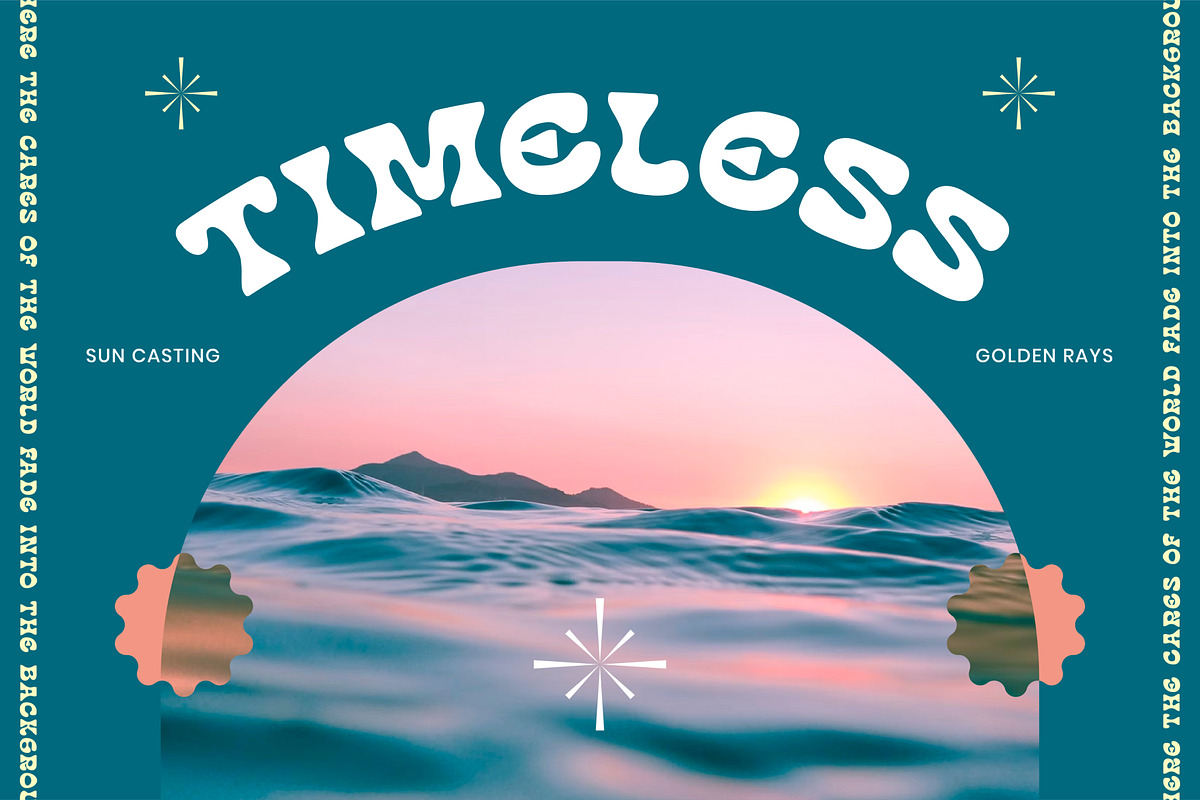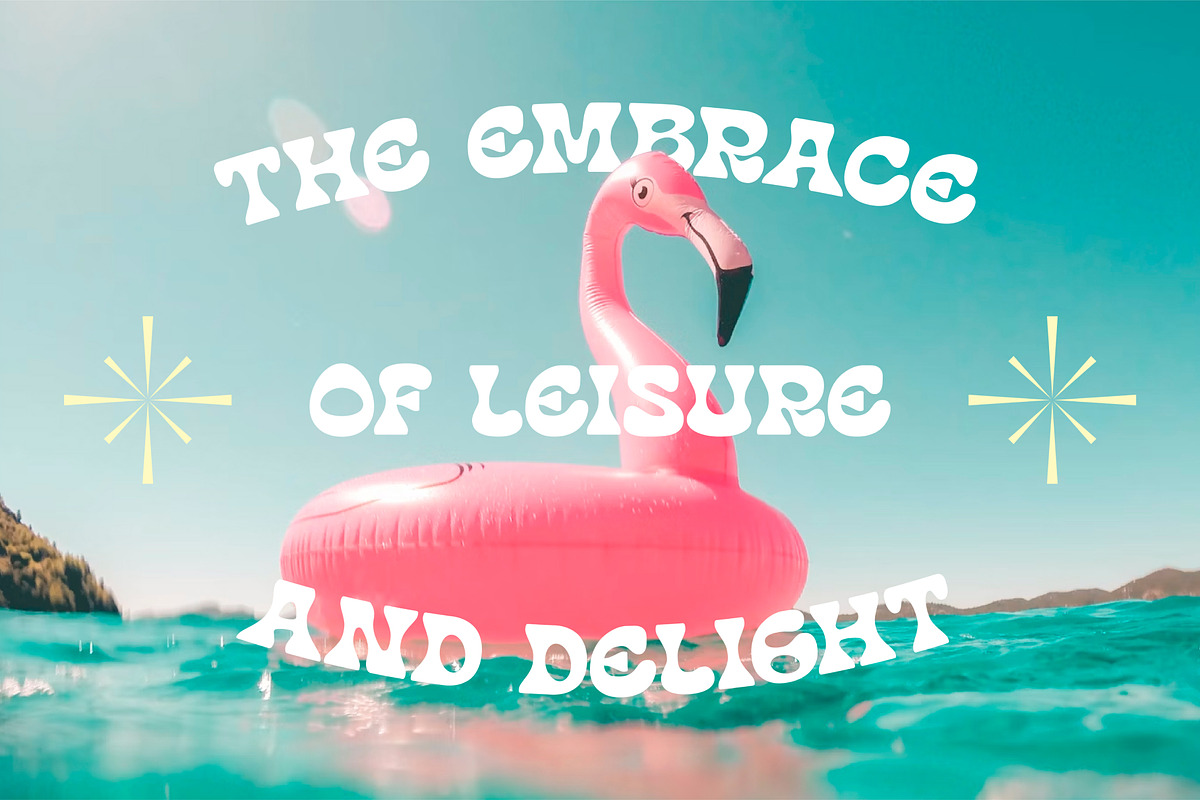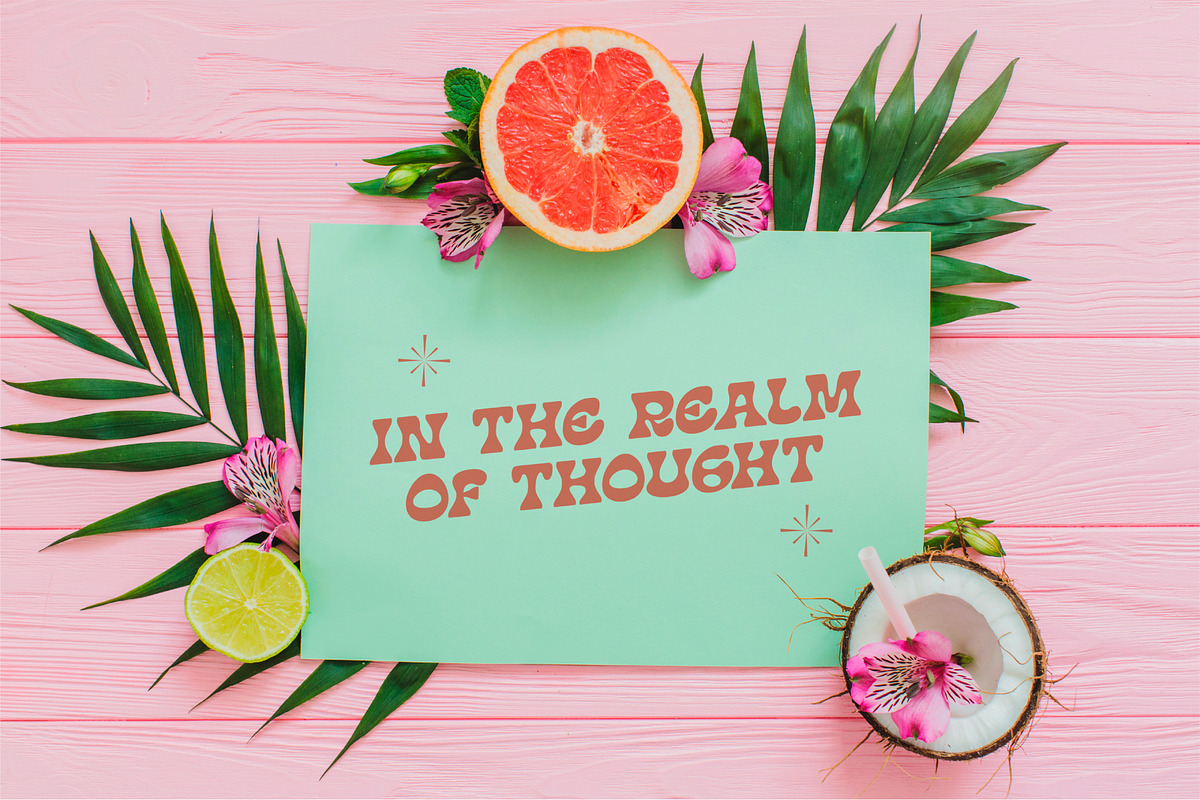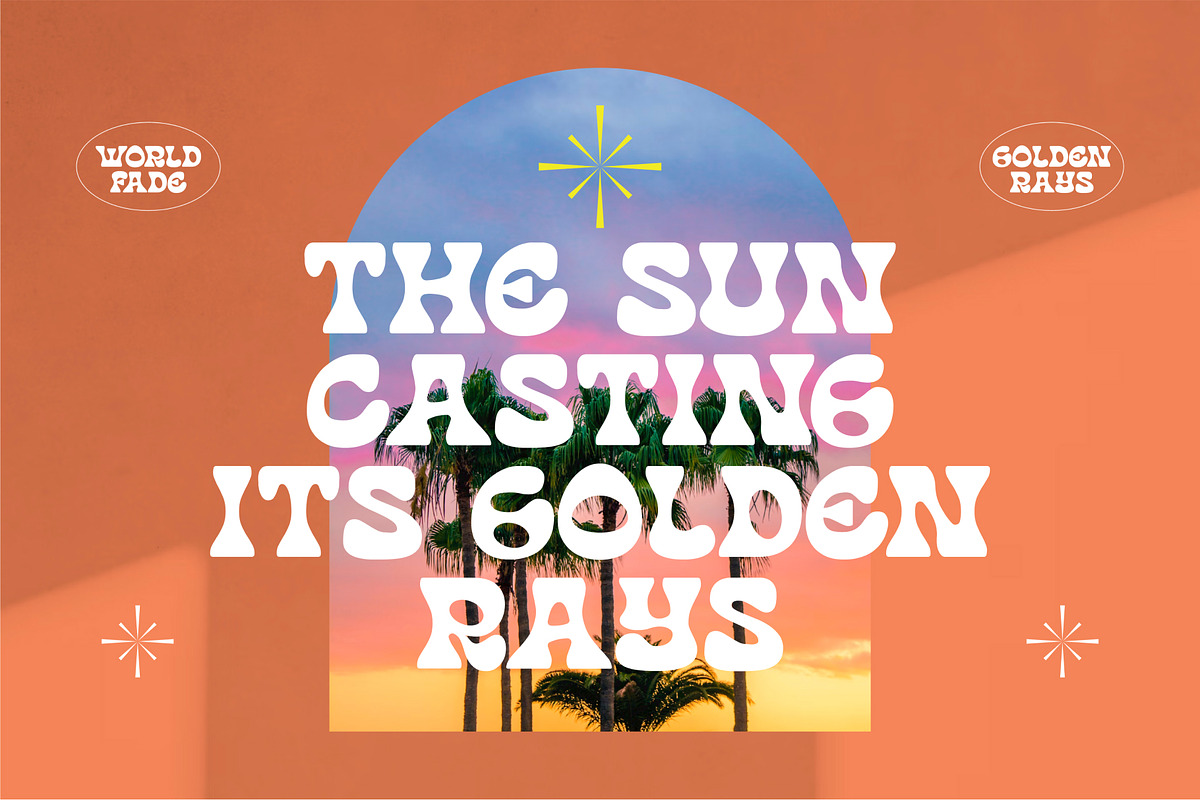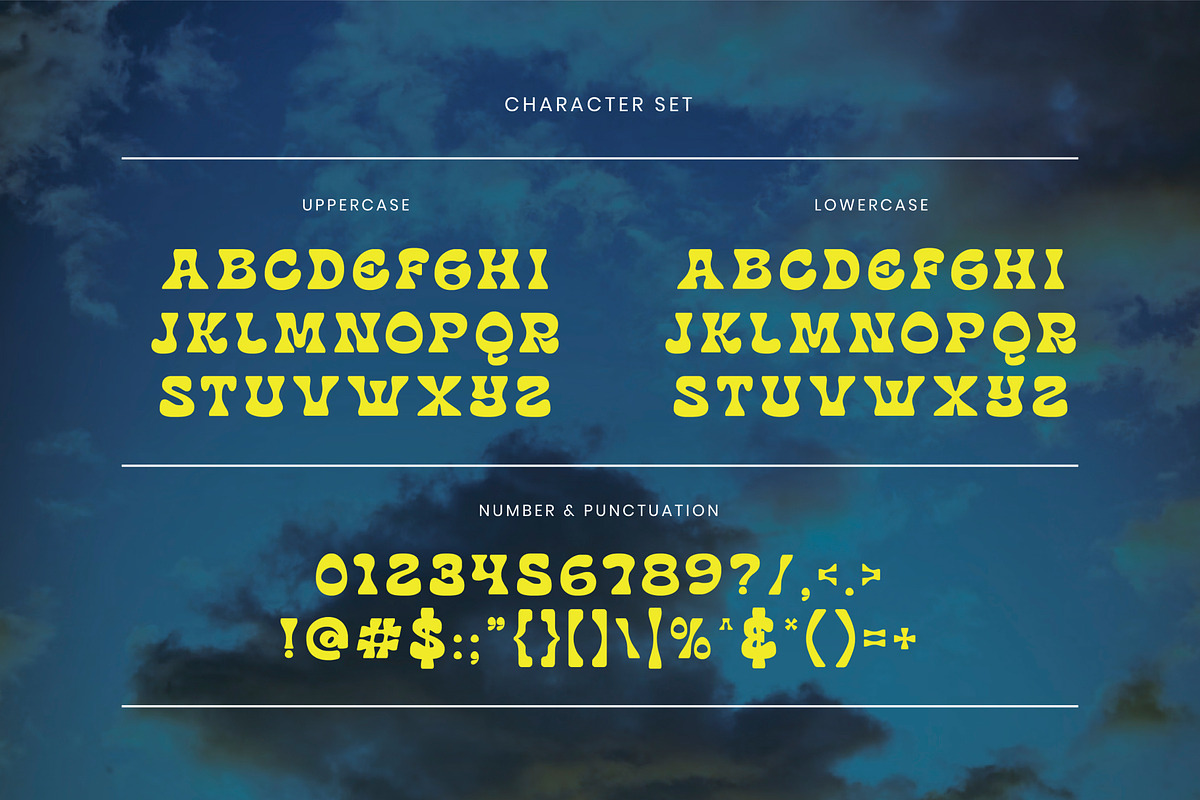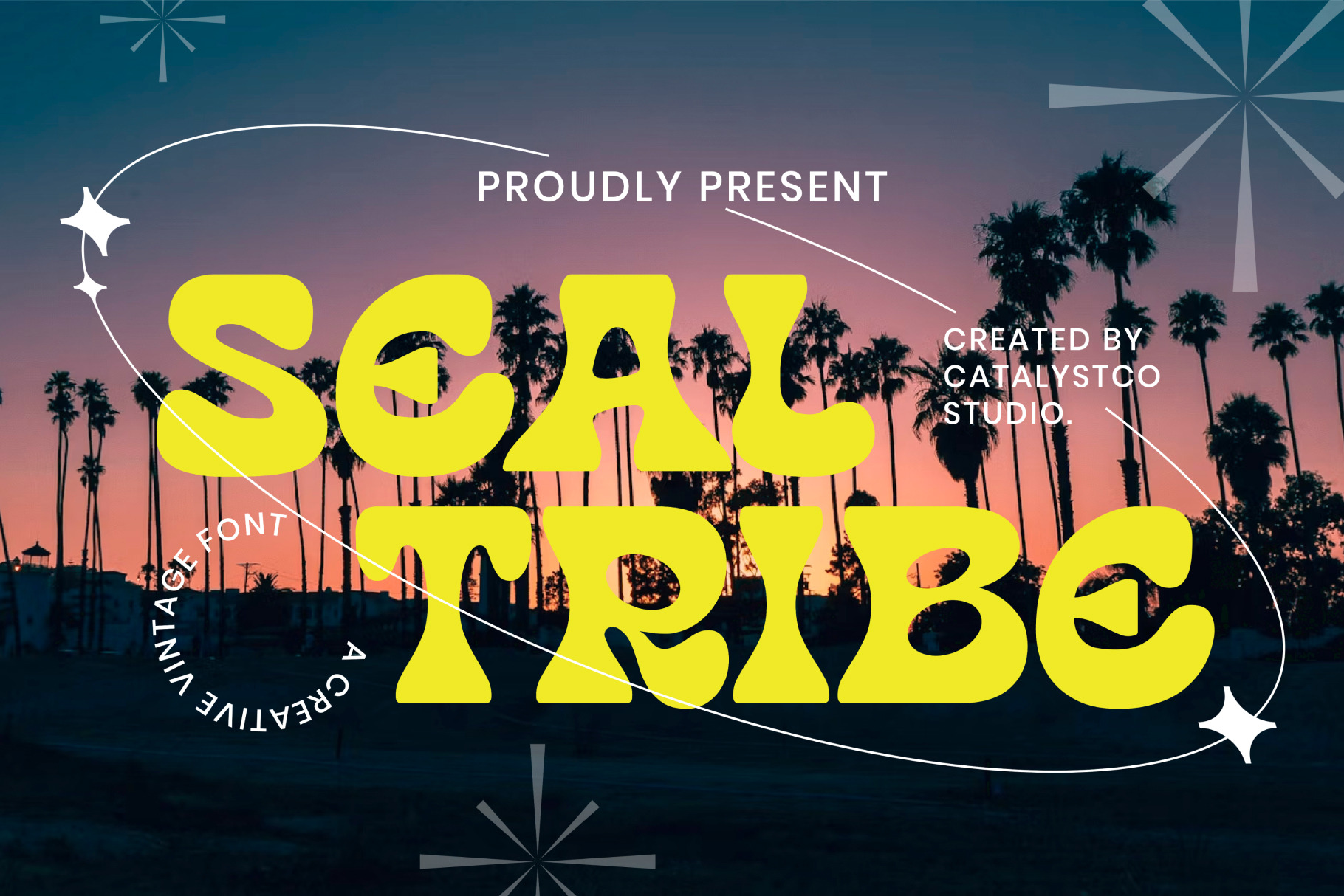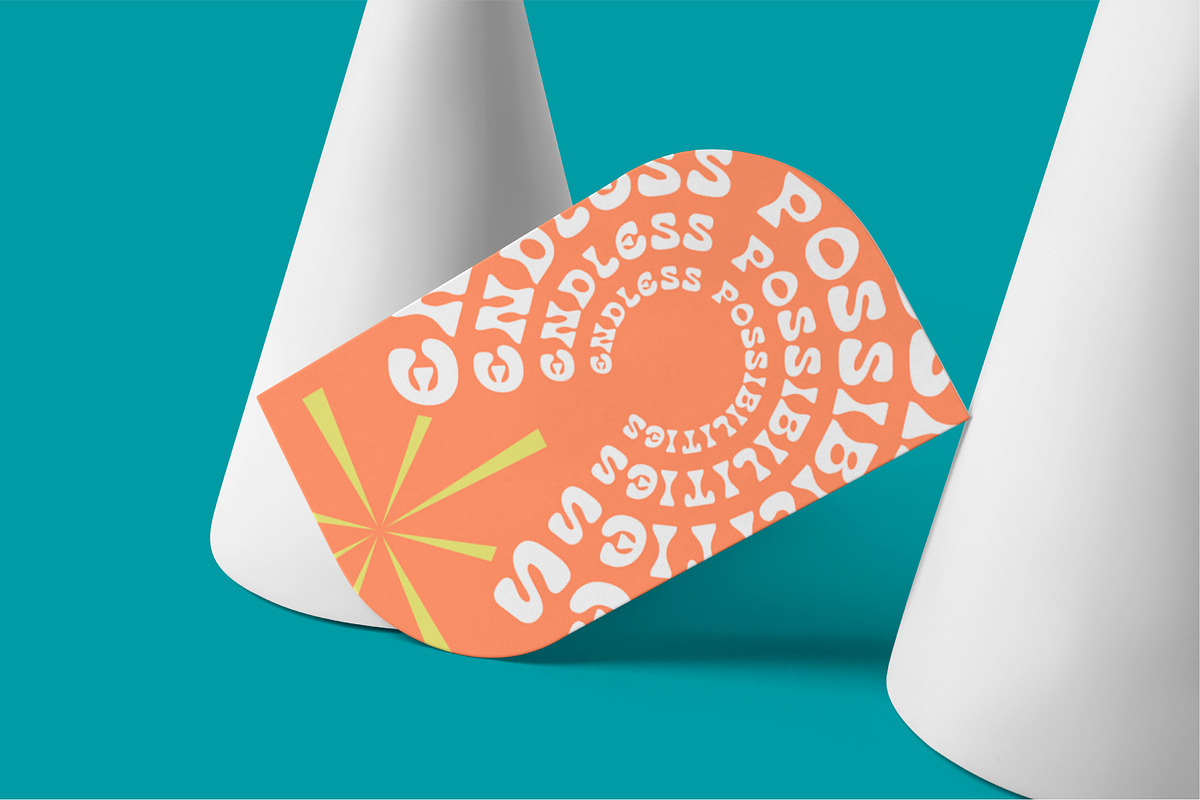
Seal Tribe Creative Vintage Font
Seal Tribe Creative Vintage Font typeface excellent used for the manufacture quote text, logotype, header magazine, and many more.
Main Features
- Ligatures & Alternate
- Numeral & Punctuations